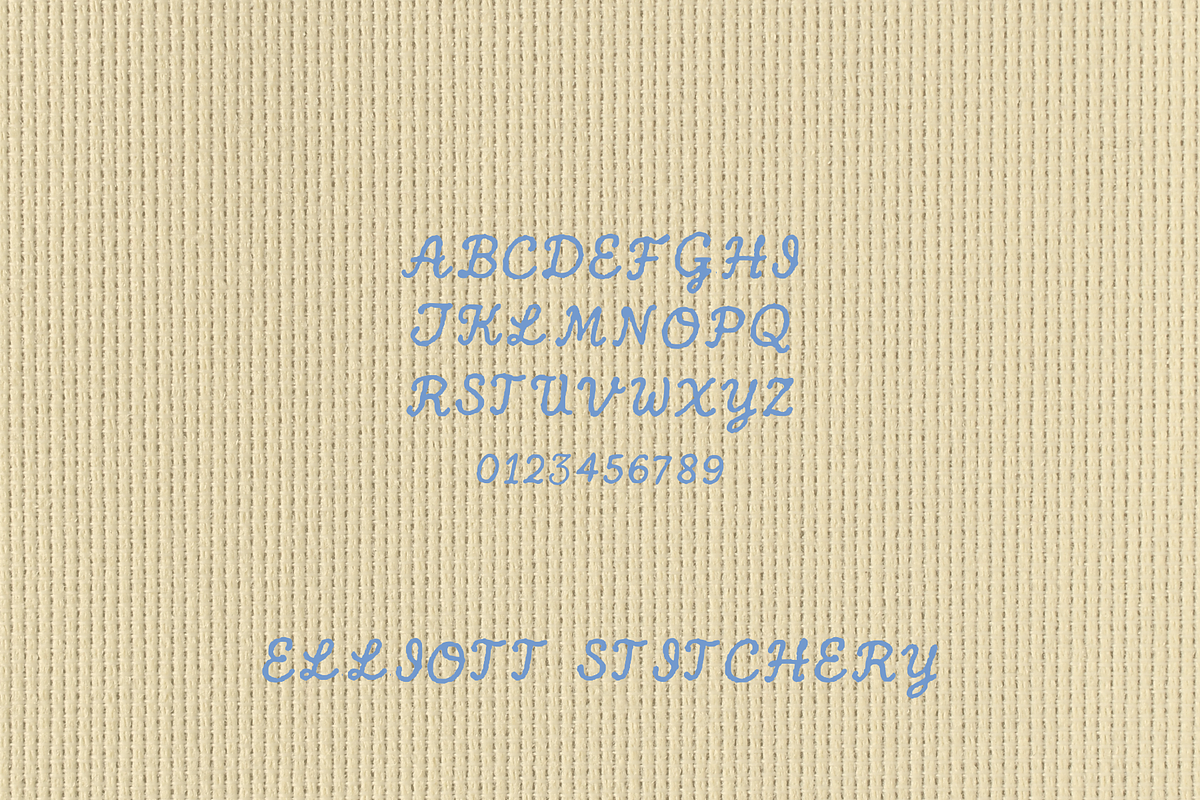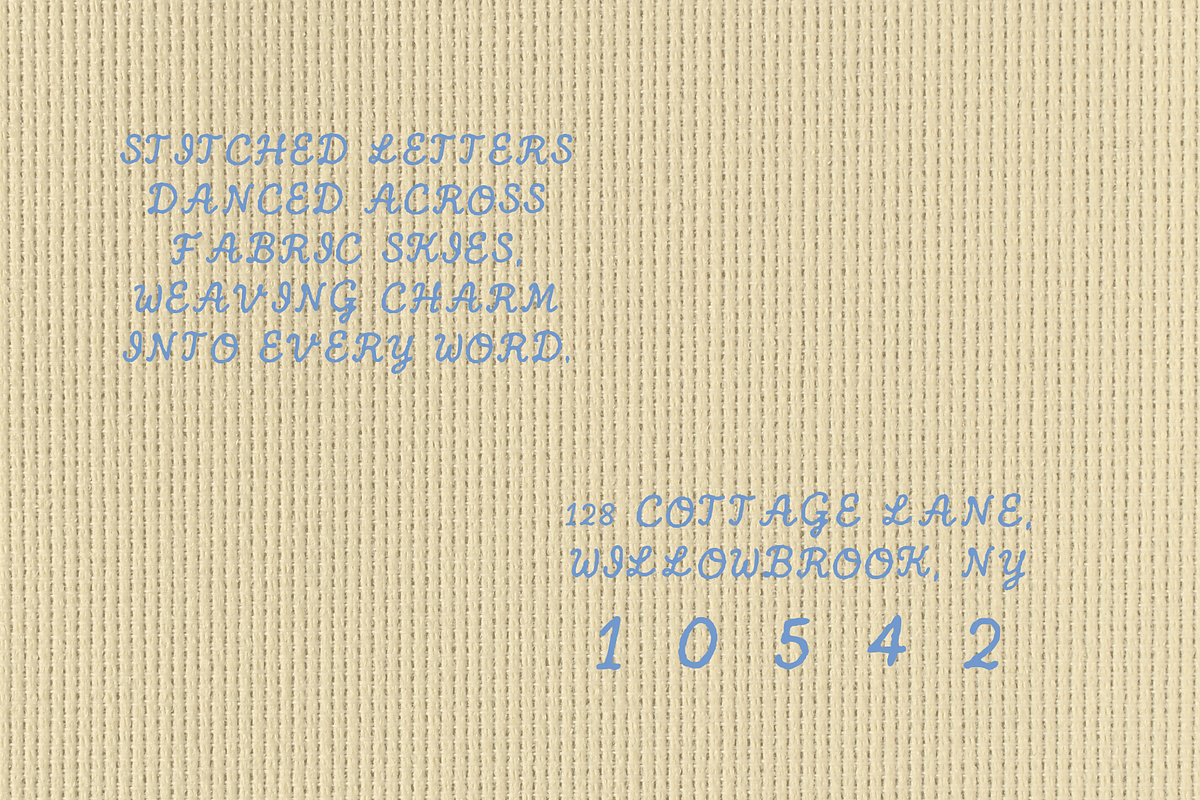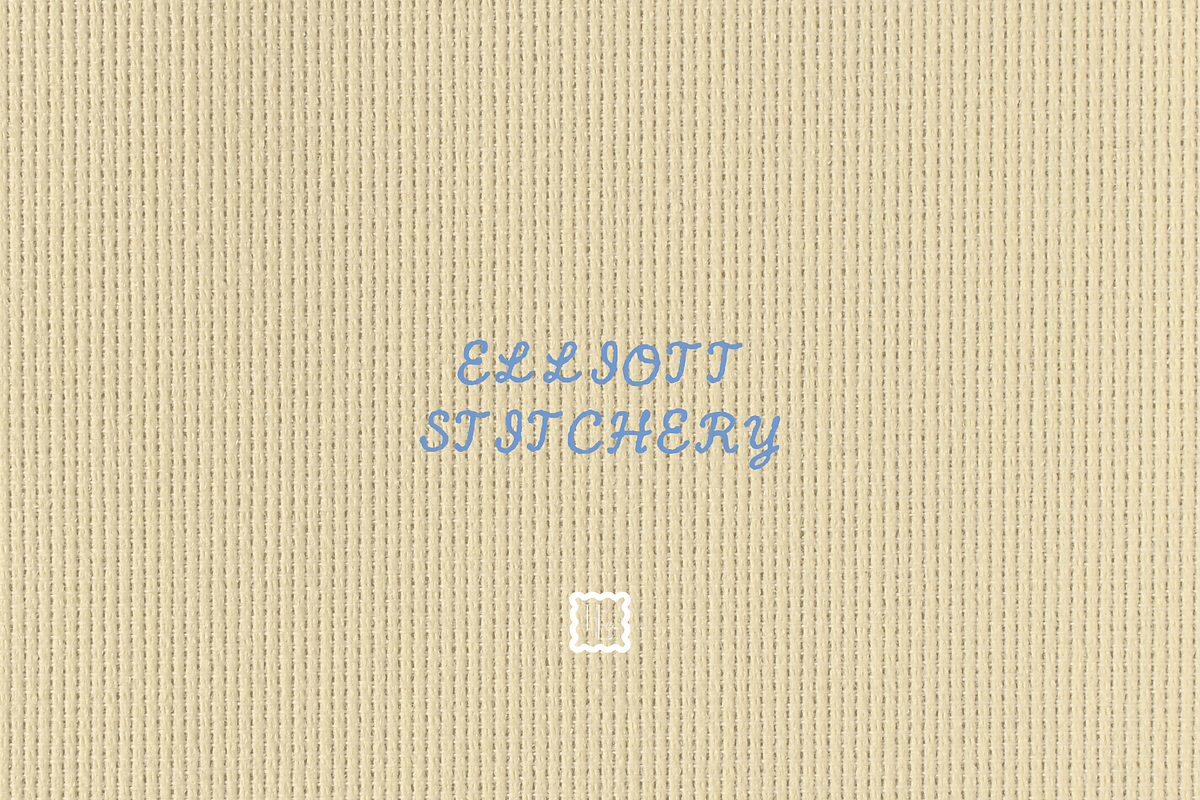
Elliott Stitchery
Elliott Stitchery is a hand-drawn script font inspired by embroidery and stitched detail, bringing a nostalgic, crafted charm to any project. Featuring A–Z and numbers, it’s perfect for cozy branding, handmade goods, and creative designs. Includes both TTF and OTF file formats for versatile use.